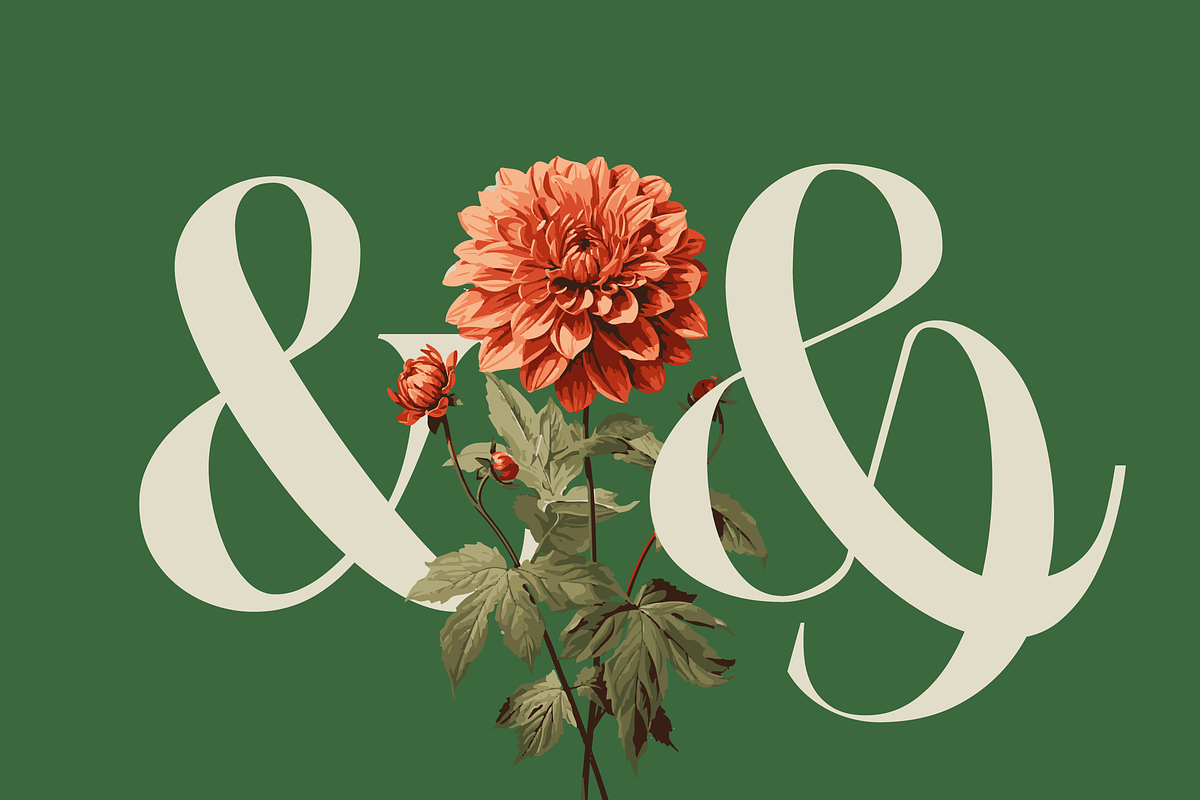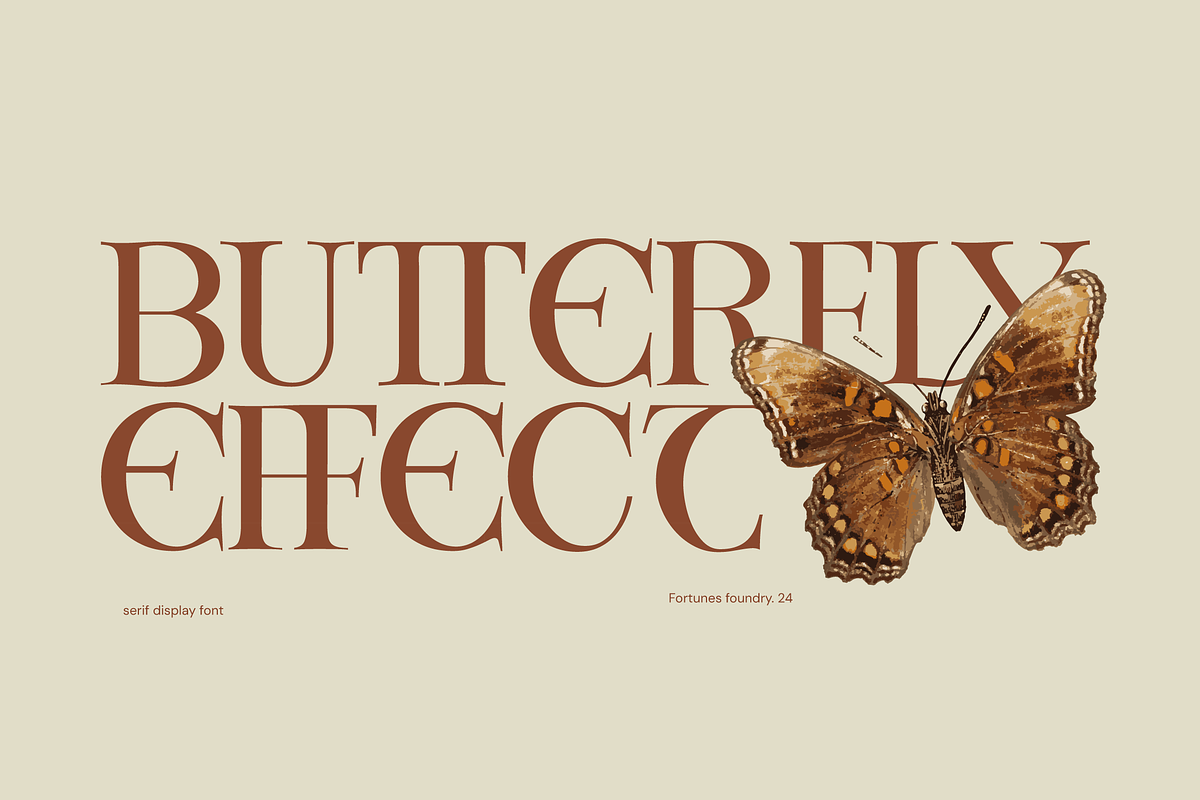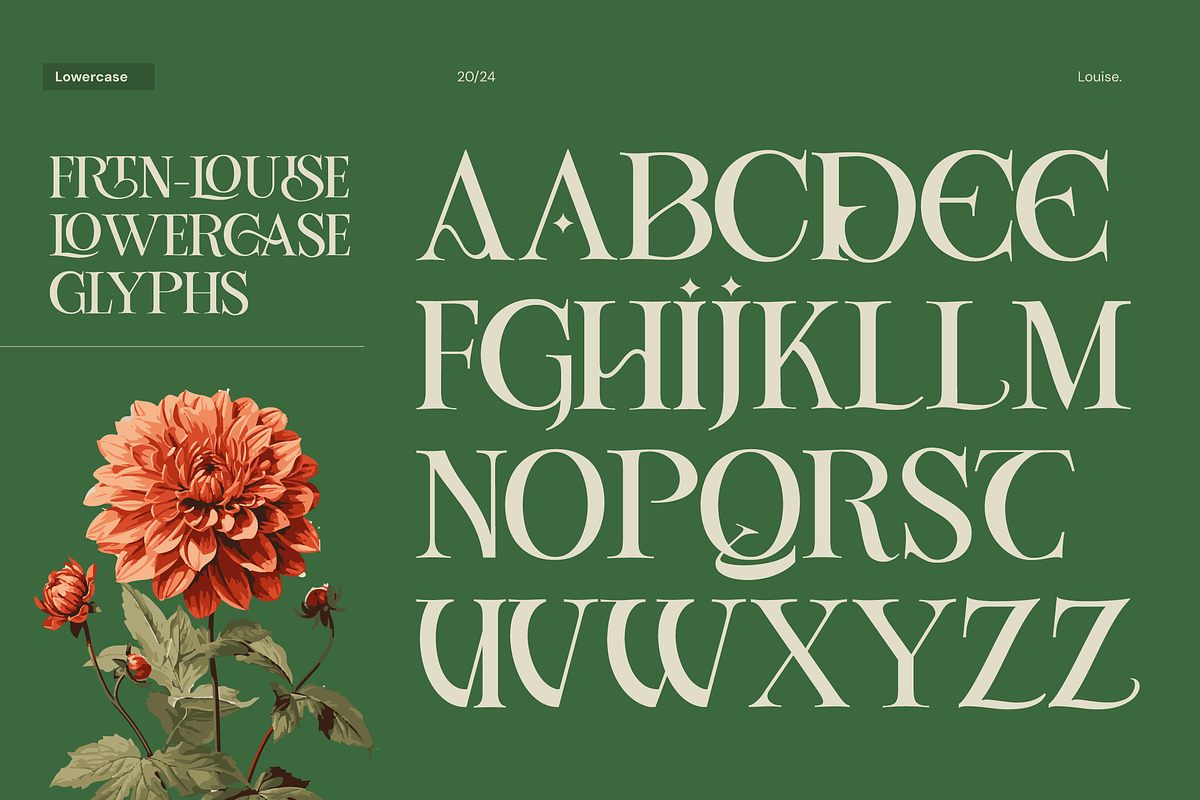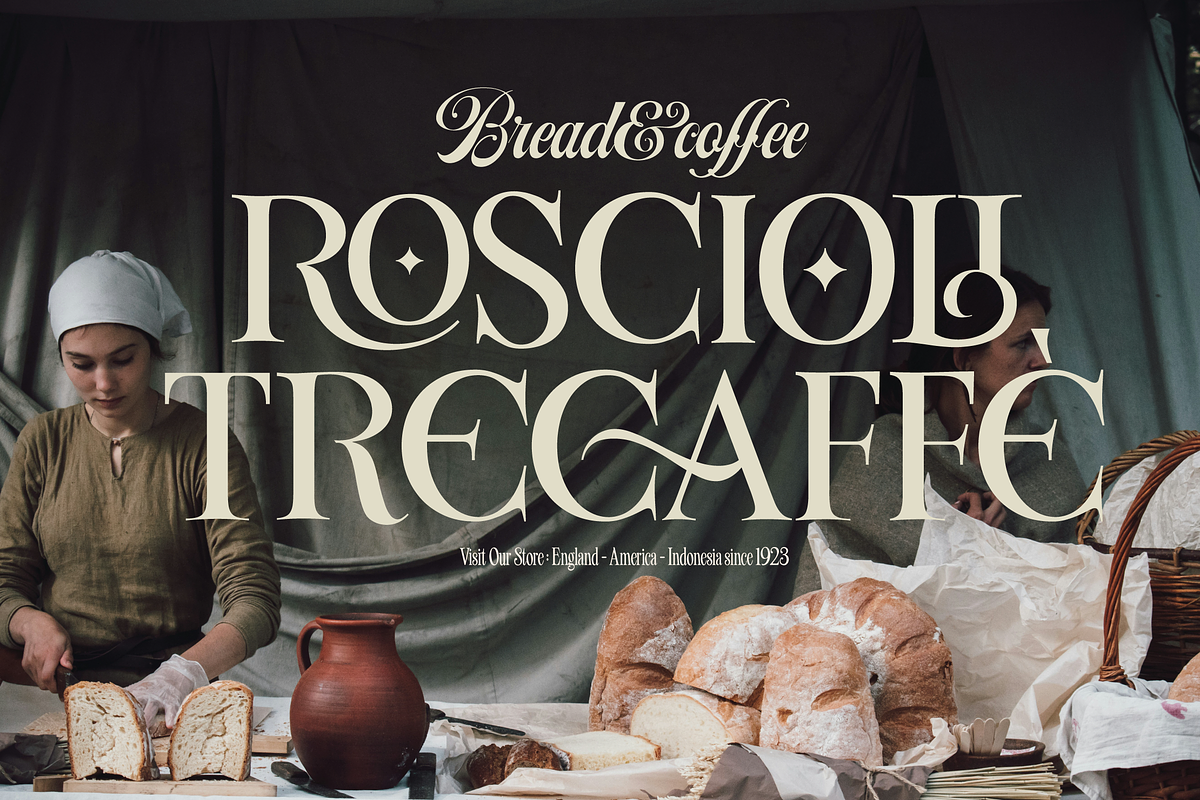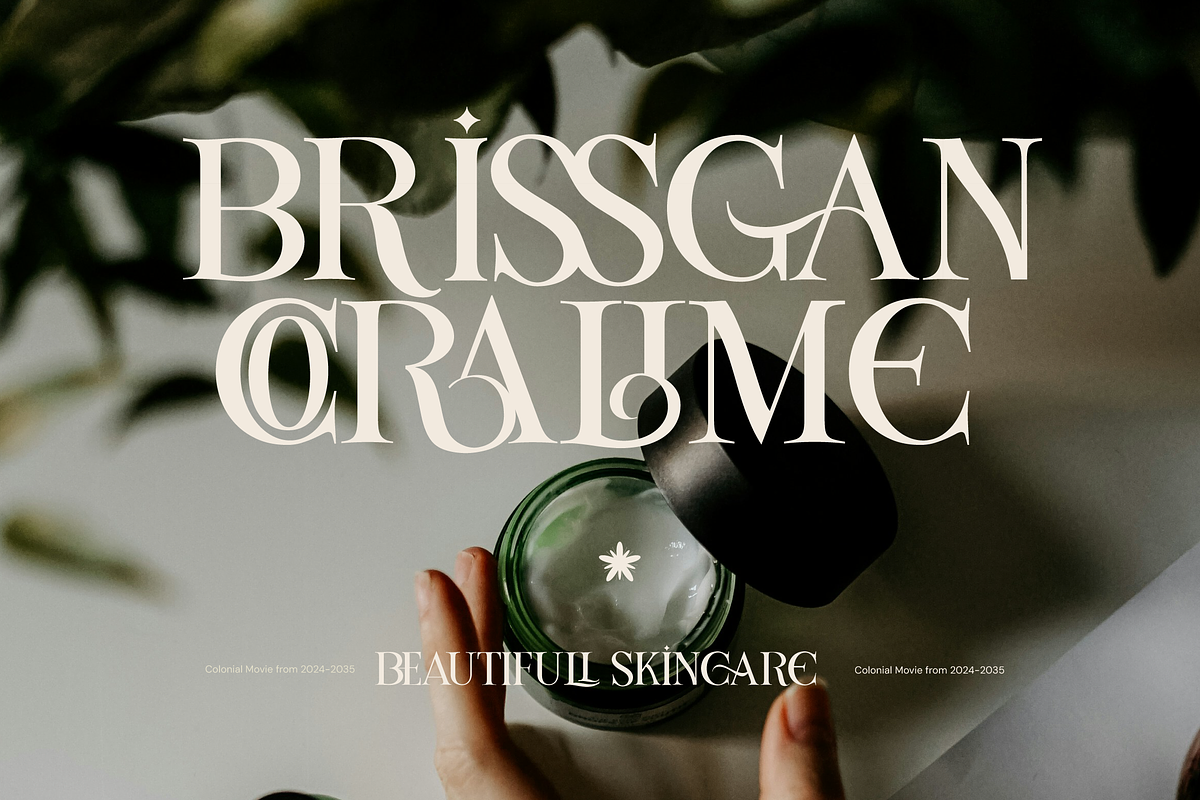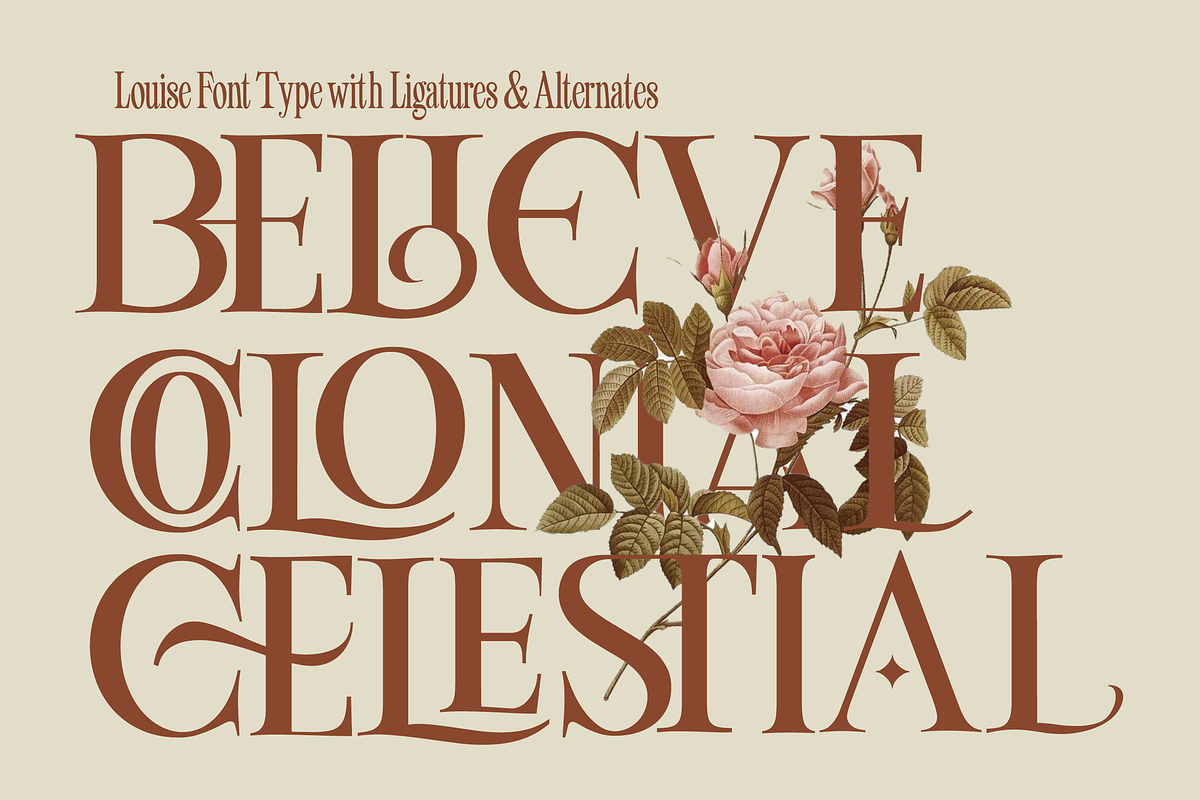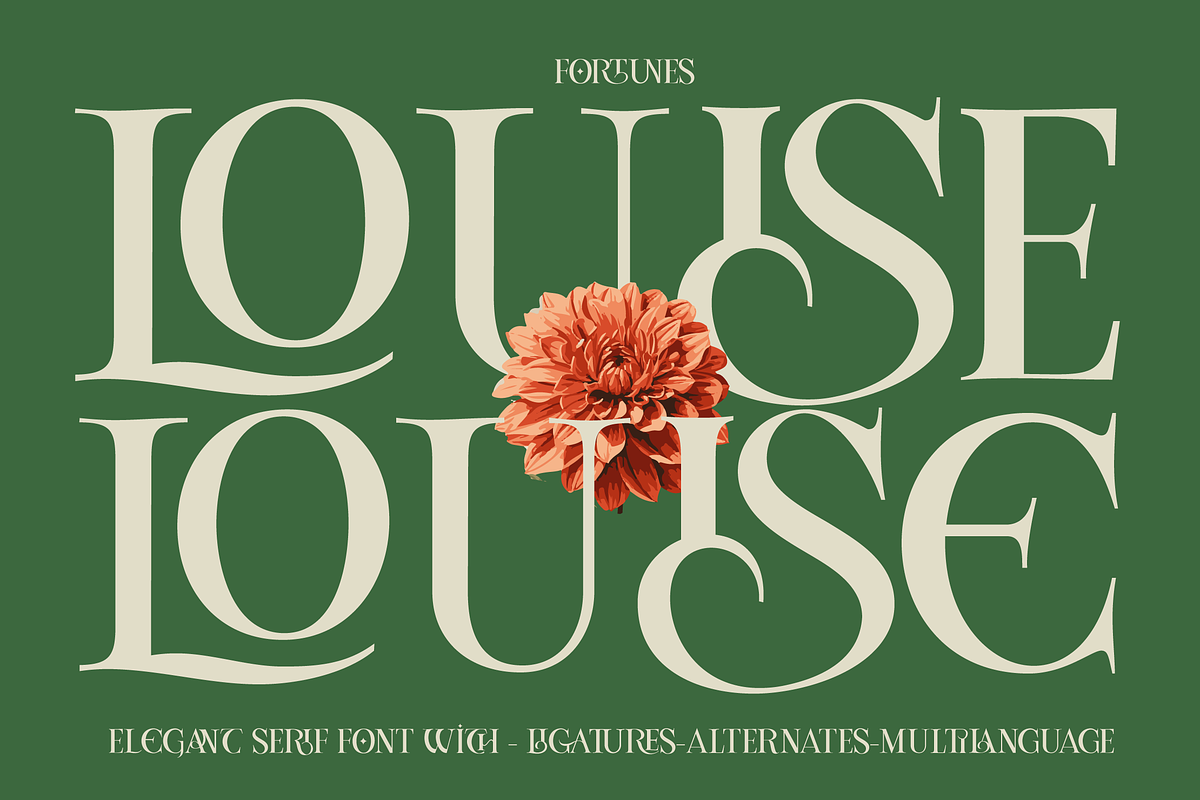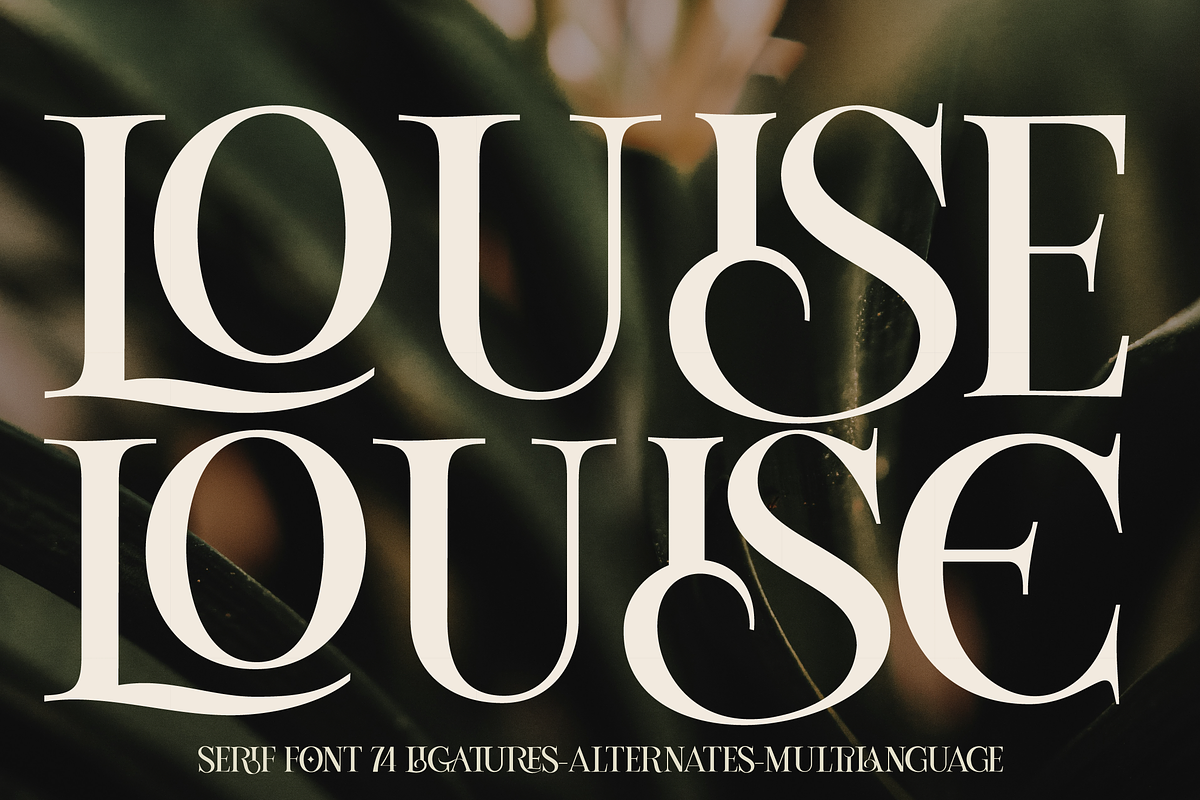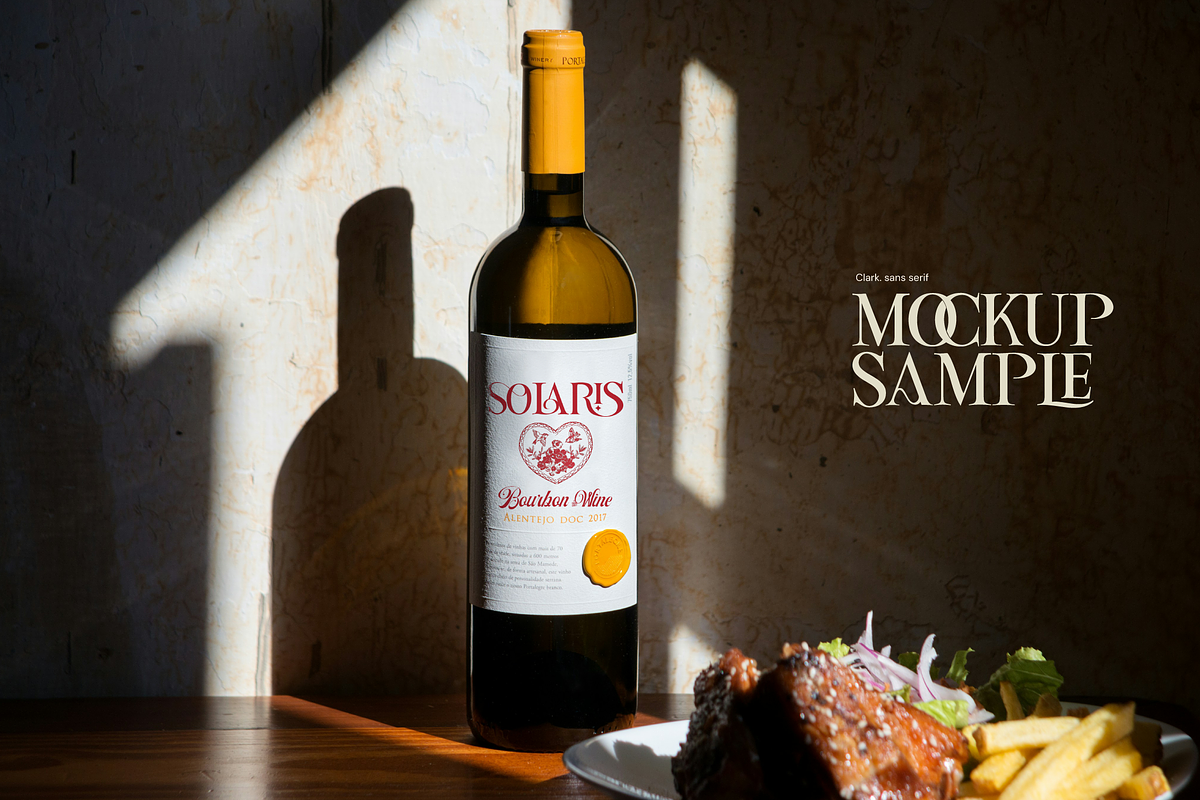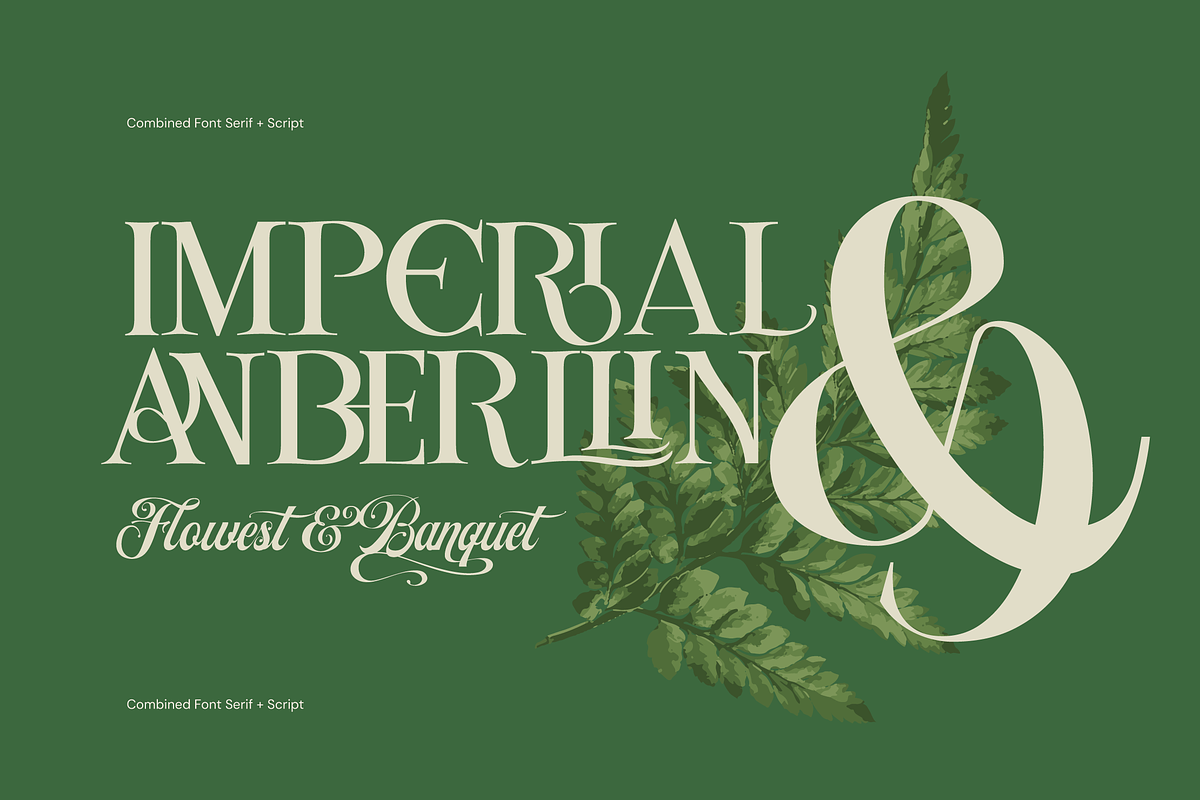
Louise - Elegant Ligatures Serif
Louise is a serif elegant typeface exudes sophistication and timeless charm. Its refined letterforms feature delicate, graceful serifs, adding a touch of luxury and class. Perfect for formal occasions, high-end branding, or editorial designs, it combines readability with aesthetic appeal. Balanced proportions, thin strokes, and subtle curves give it a regal presence, making it a favorite for evoking elegance and tradition
- Lowercase & Uppercase
- Multilanguage Support
- Numbering